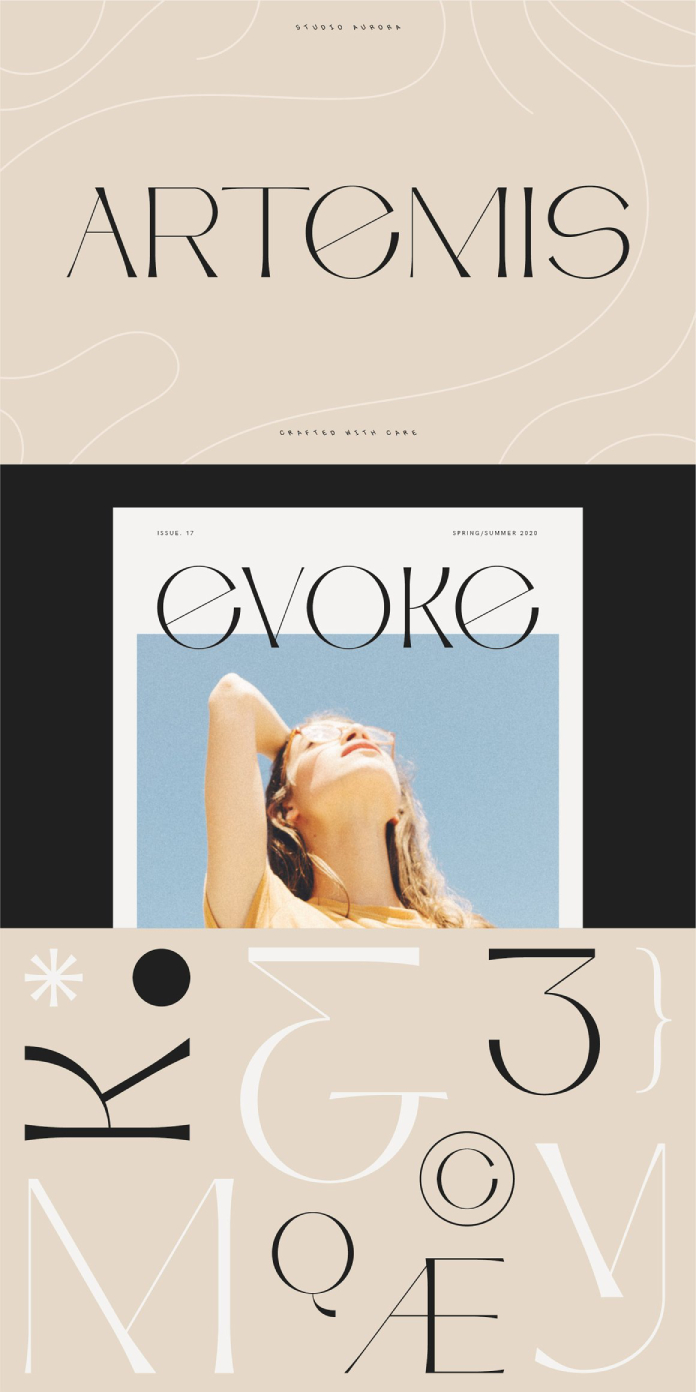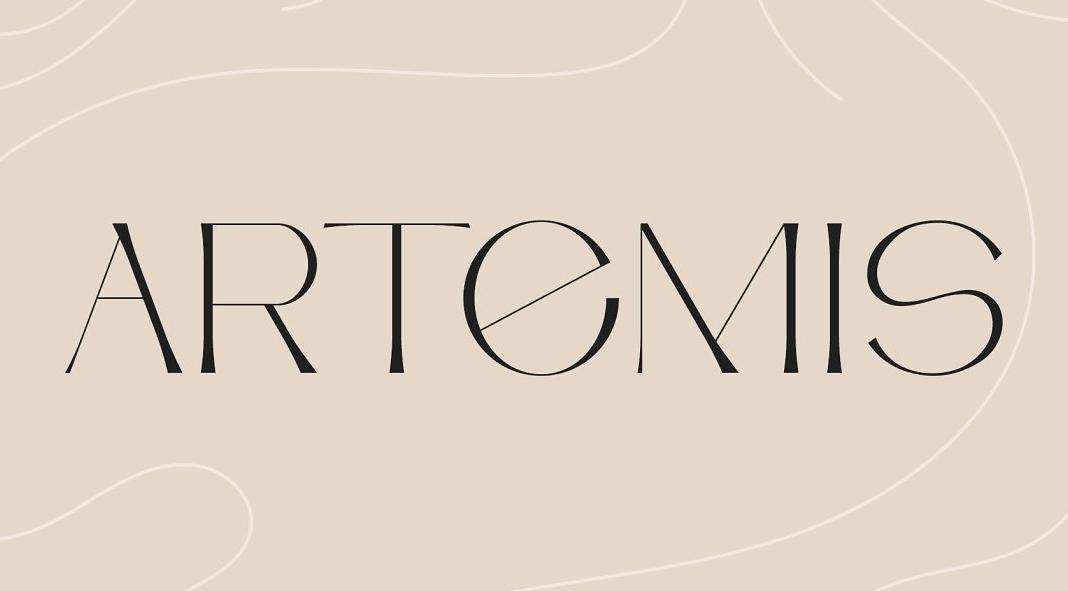
Say hello to Artemis, a unique semi-serif typeface that offers an elegant look and feel.
Crafted by Studio Aurora, Artemis is a stylish and sophisticated display semi-serif typeface. All upper and lowercase characters possess the same cap height, resulting in an interesting fusion between uppercase and lowercase letters for creative design work. This font makes an ideal choice for magazine titles & layouts, logo design & branding, invitations & quotes, blog headers/posters/advertisements – making it perfect to inject style into any project!